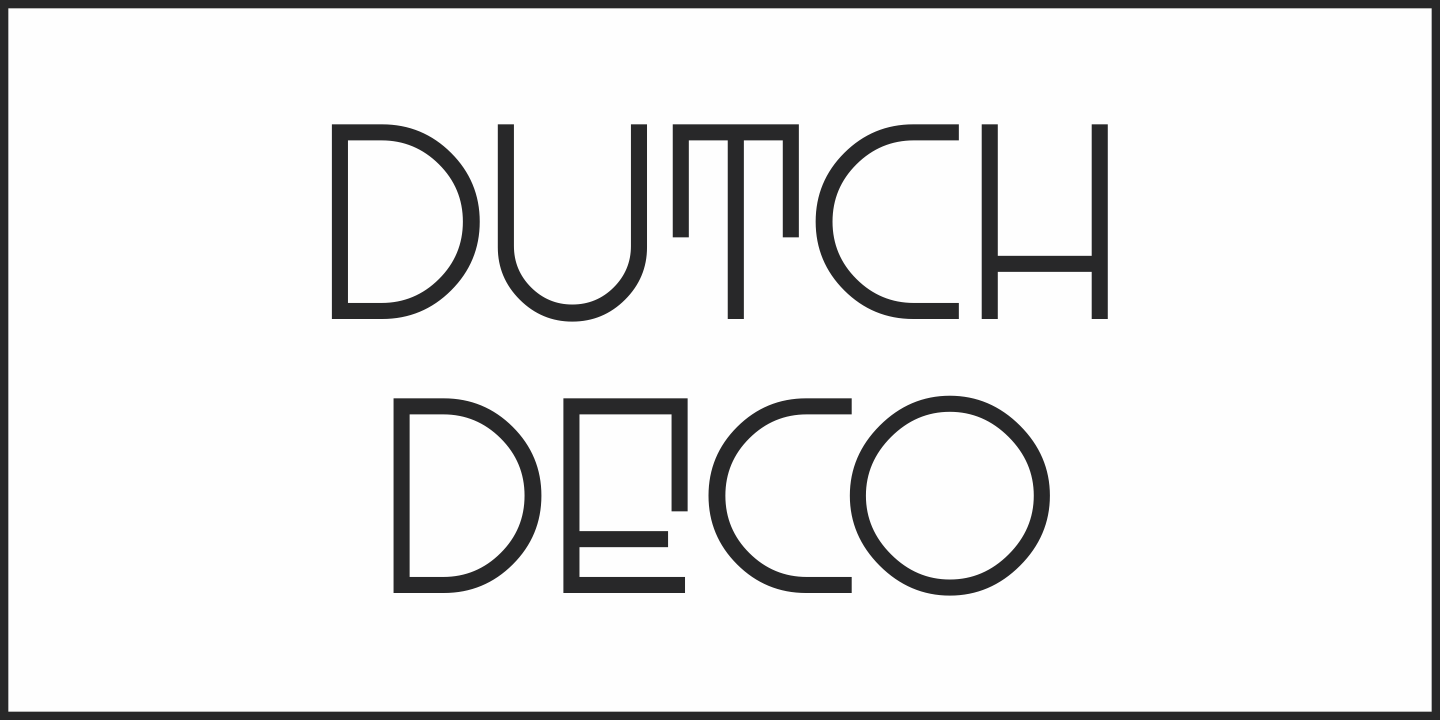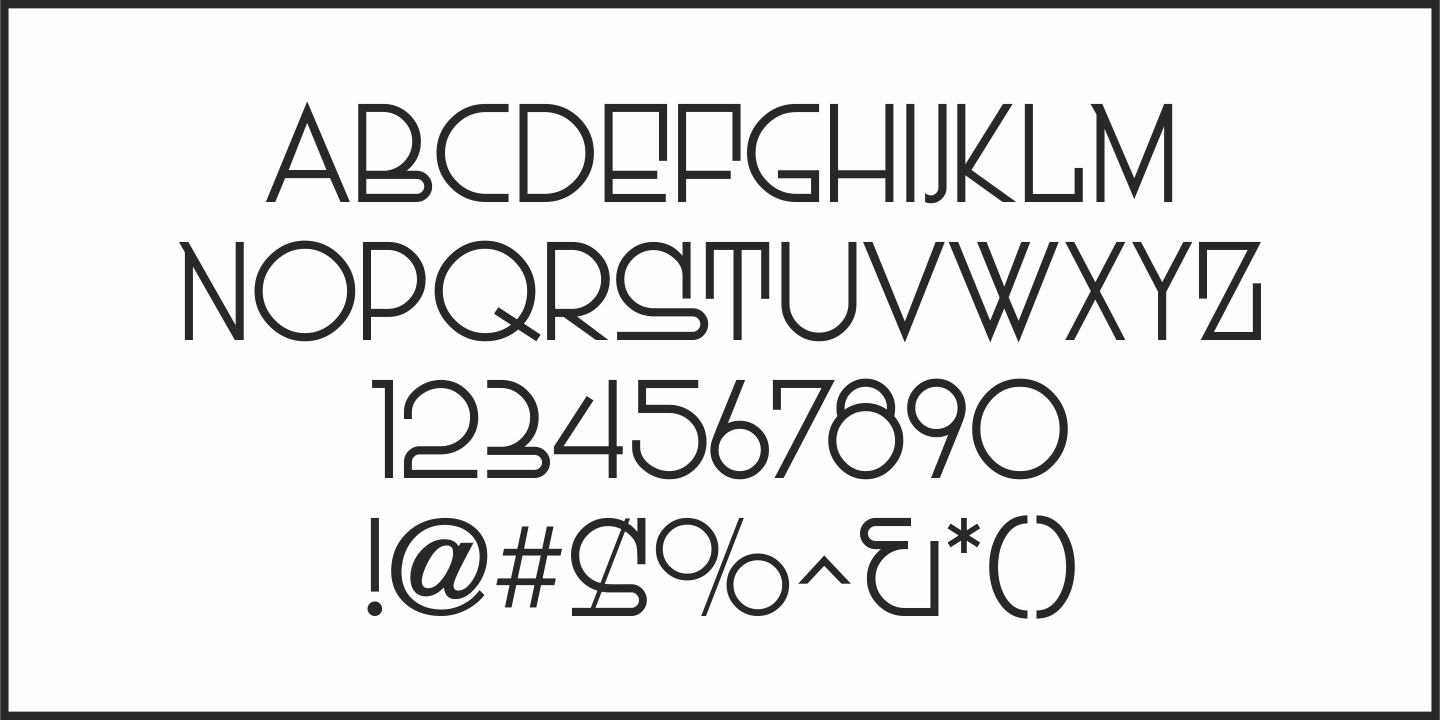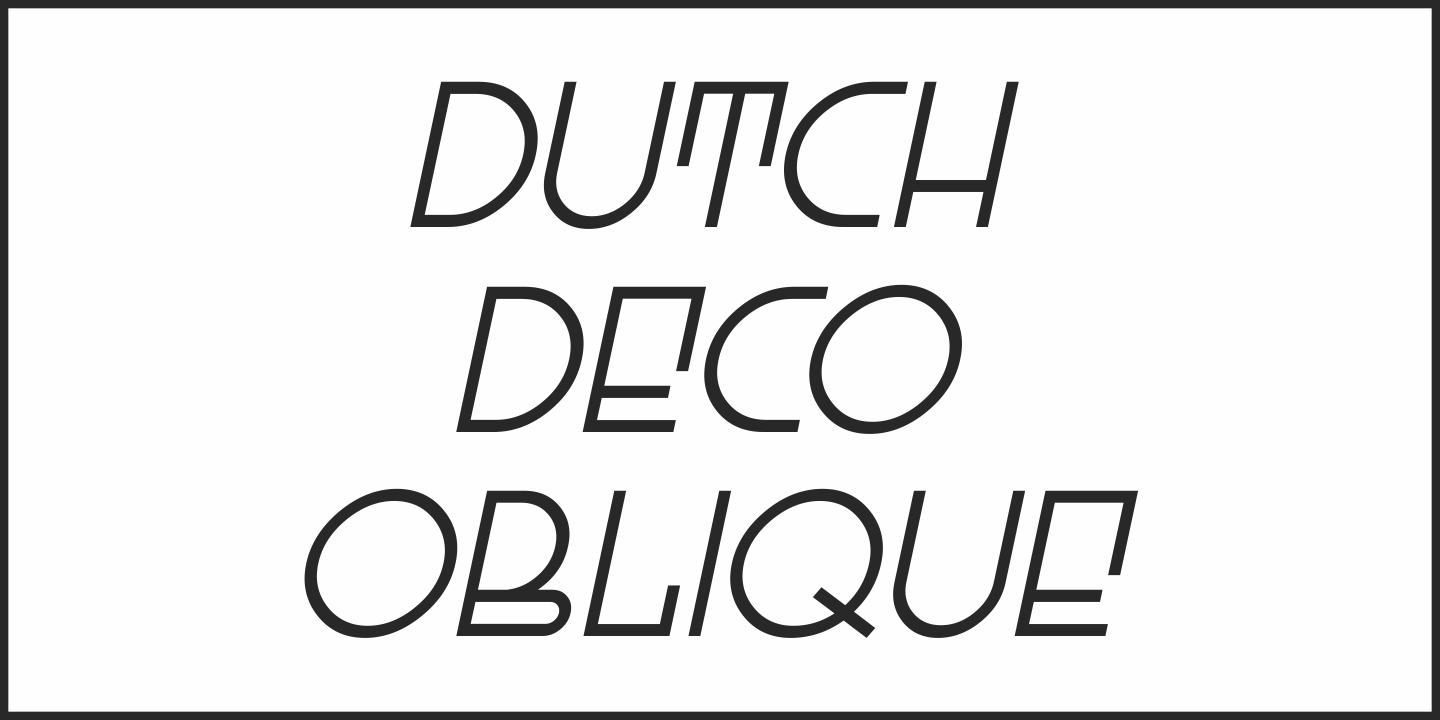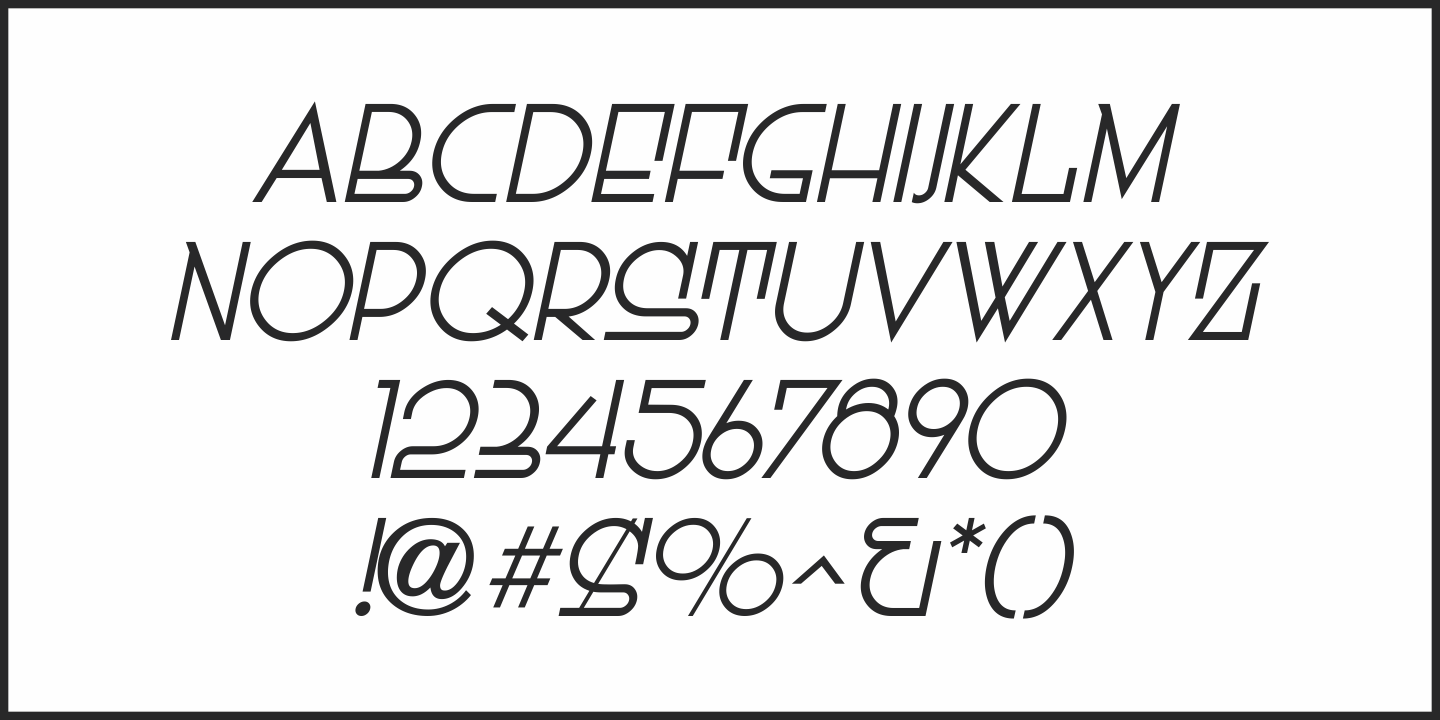
Dutch Deco
Although the Art Deco movement is generally attributed to the 1930s and 1940s, a number of design influences were showing up during the late 1920s in what is referred to as the Art Nouveau period.
The Dutch illustrator Anton Kurvers’ hand lettering on the front cover of the (1927) magazine “Het Vlaamsche Volstooneel” clearly shows the clean lines and Avant Garde geometrics that foreshadow Art Deco.
This attractive pre-Deco lettering has been recreated digitally as Dutch Deco JNL, and is available in both regular and oblique versions.
Dutch Deco JNL Regular by Jeff Levine Fonts